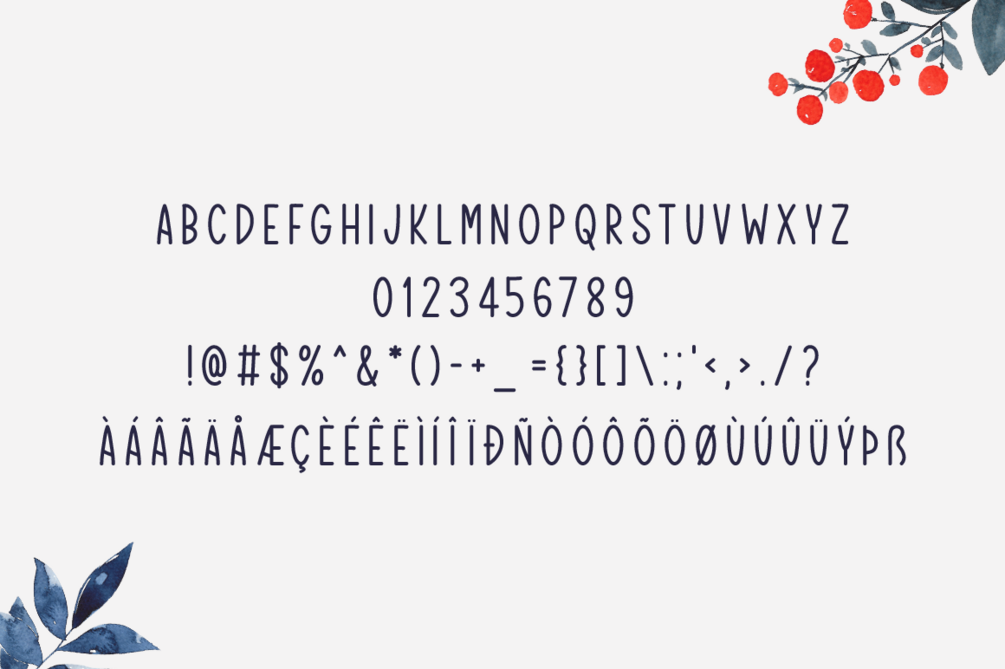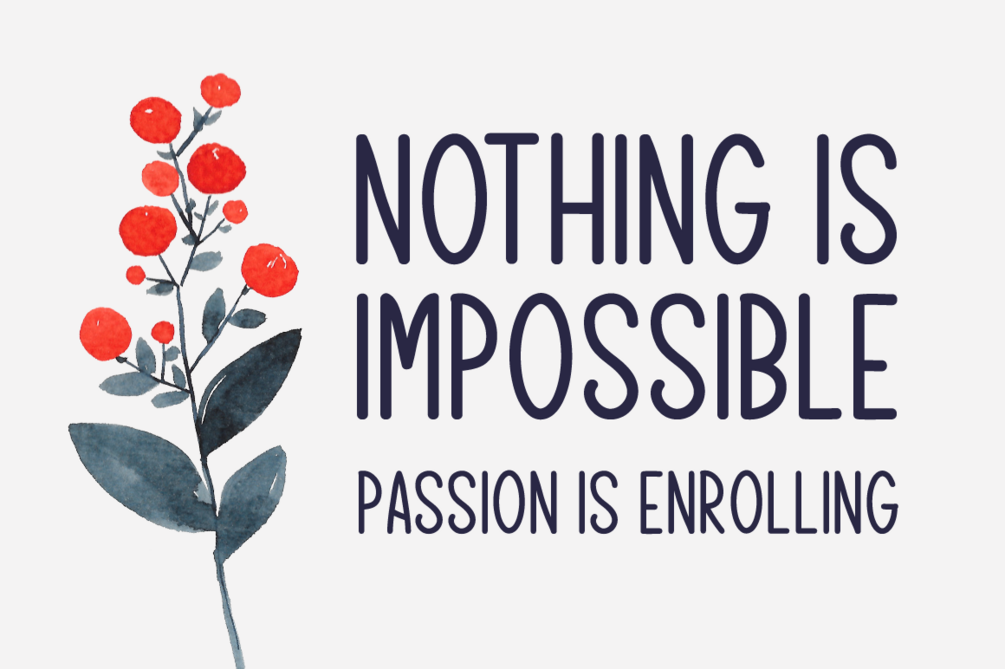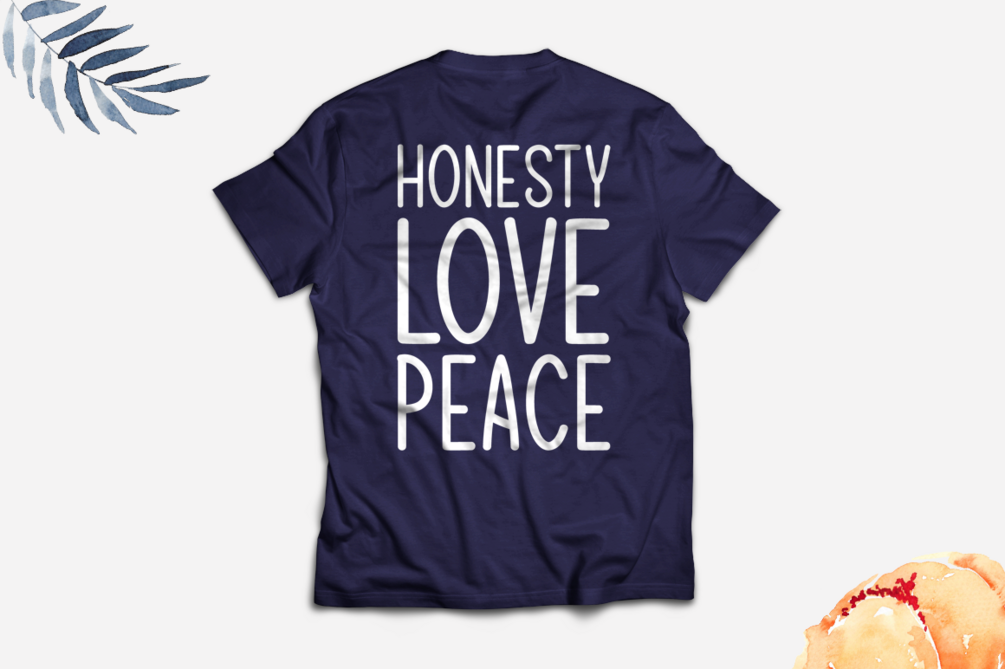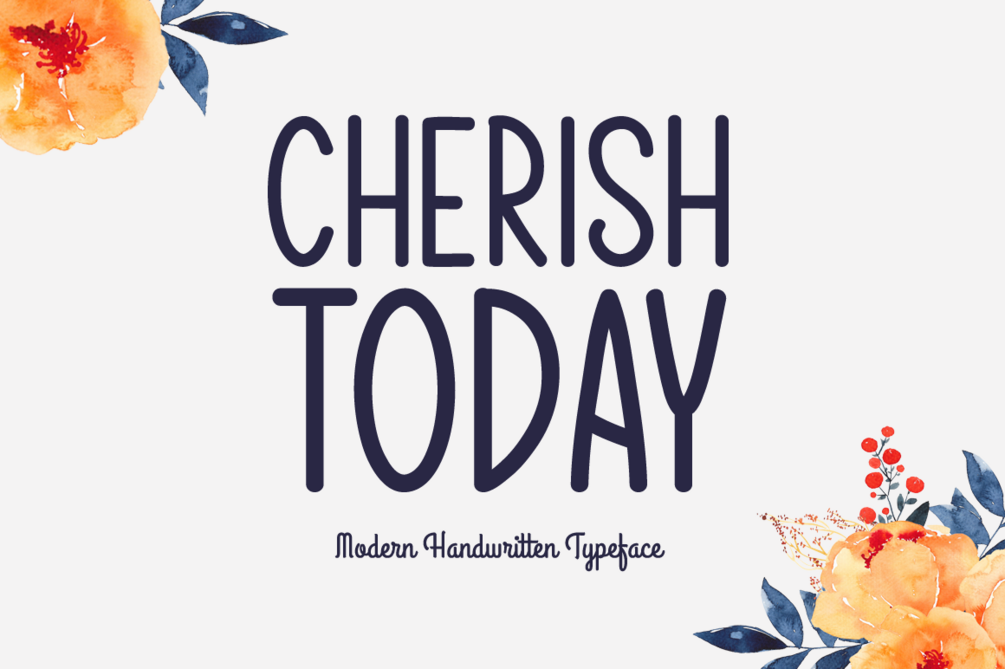
Cherish Today Typeface
Cherish Today is a brand new handwritten font. Cherish Today is perfectly suited for stationery, logos, t-shirt, paper, print design, website header, photo frame, flyer, music cover, poster, image slider and much more.
Includes a range of multilingual support